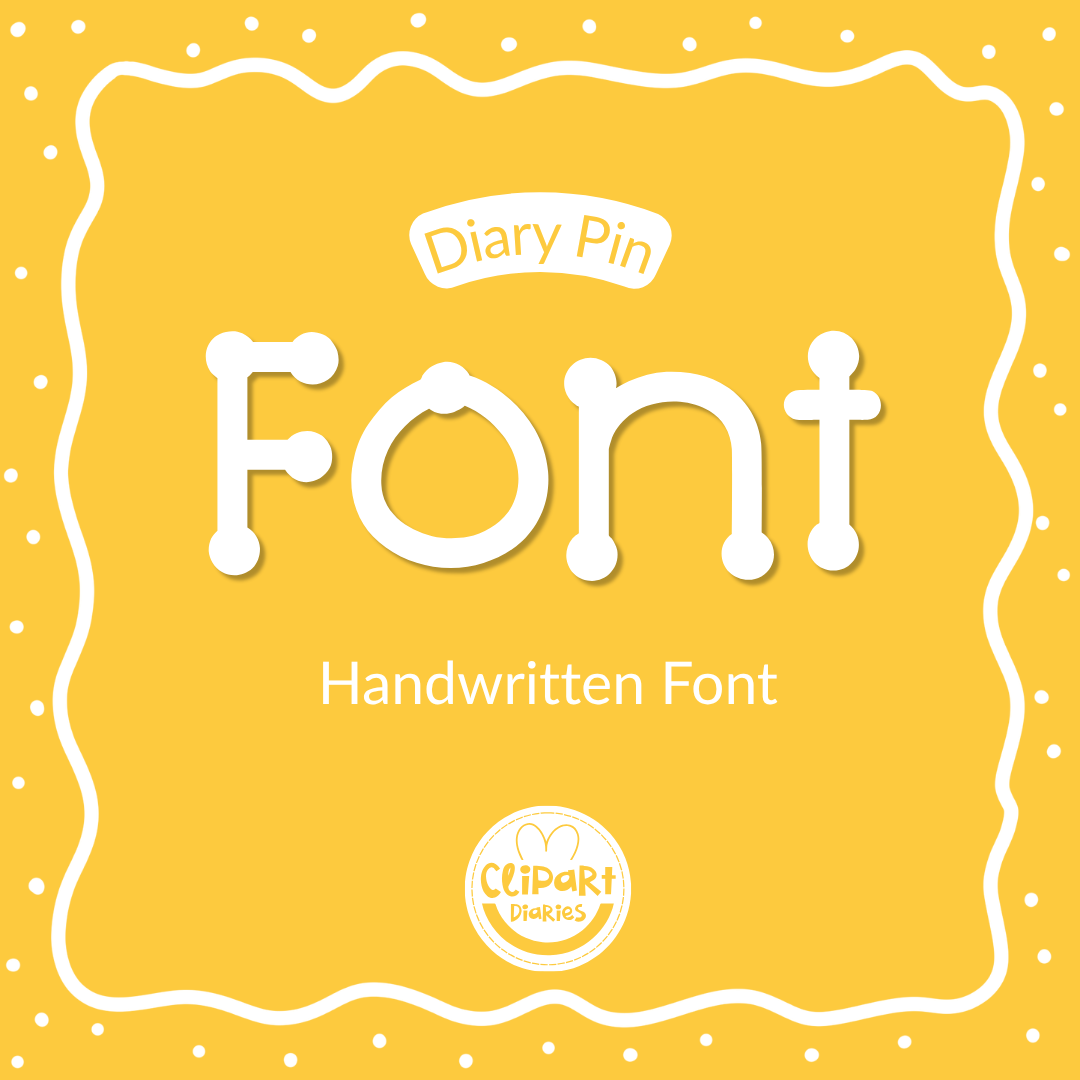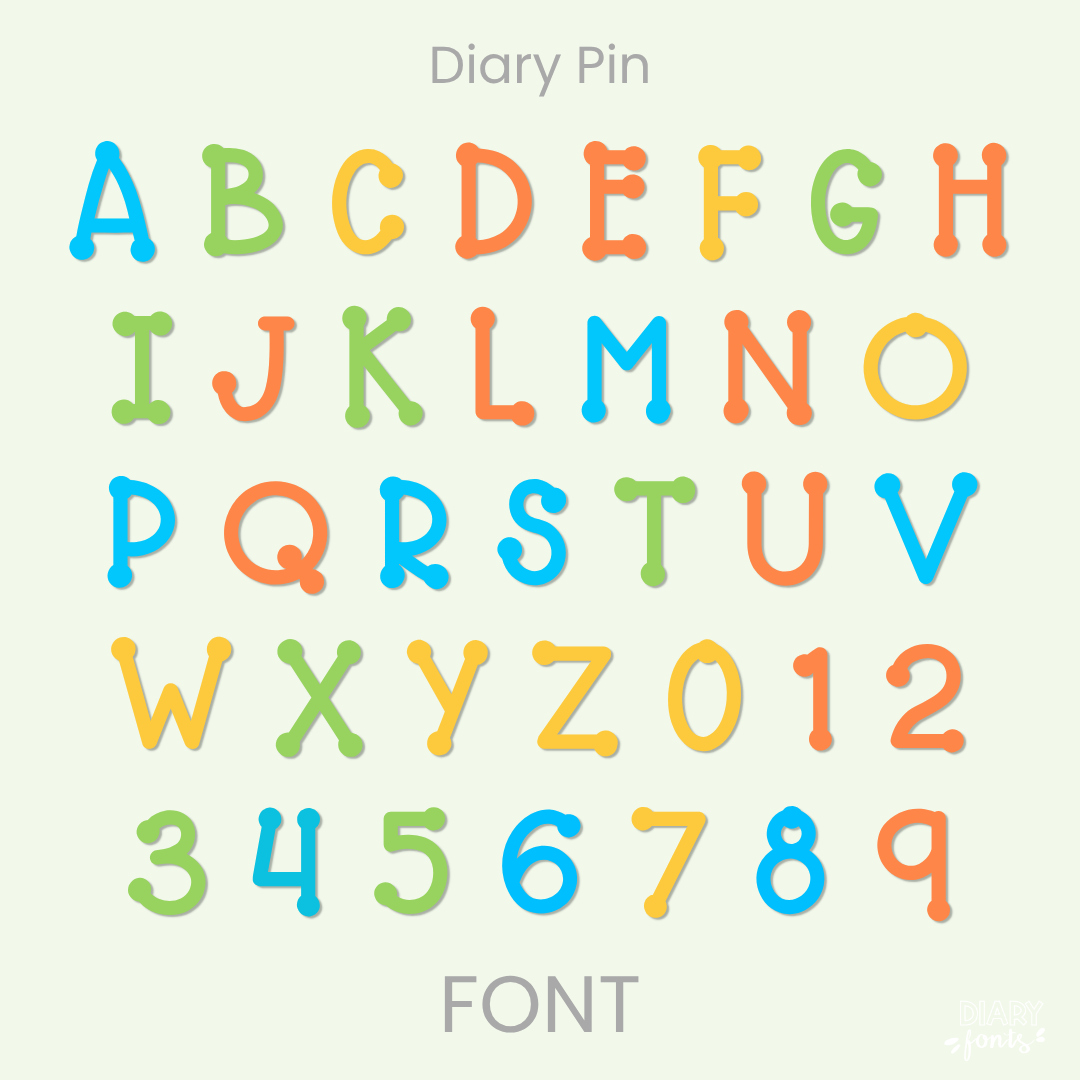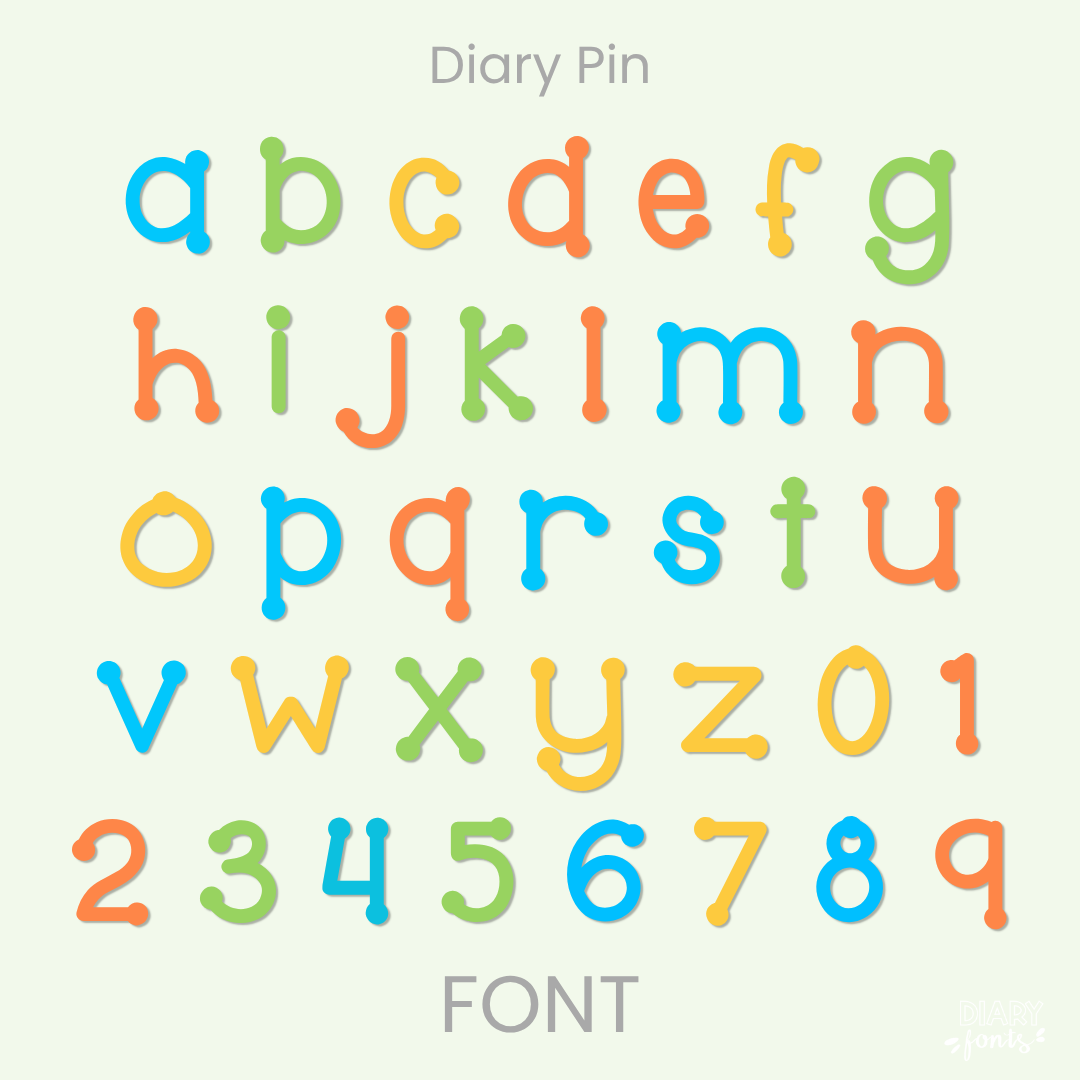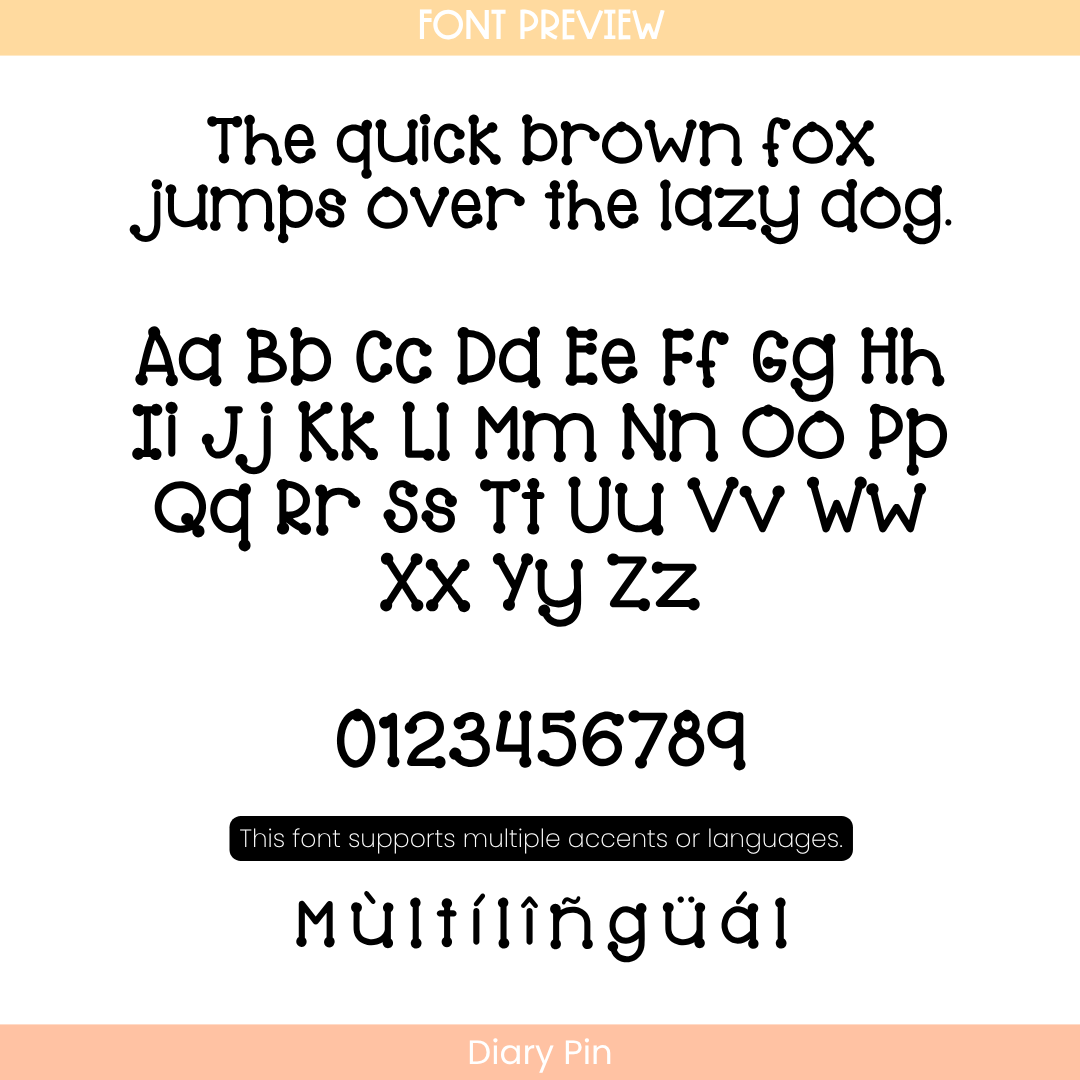
Diary Pin Font – Handwritten Font
The Diary Pin is a creative, decorative handwritten font featuring unique pin accents integrated into the structure of each letter, designed to bring a whimsical, eye-catching layout style to your digital resources and classroom materials.
If you want to give your projects a highly unique and playful look, Diary Pin is an excellent choice. Built on a neat, upright print structure, this typeface adds a charming twist with subtle pin-like loop and hinge details embedded right into the letterforms, giving a distinct hand-crafted architecture to your text. It maintains clear spacing and a balanced visual weight, ensuring your text remains exceptionally crisp and easy for students to read.
This font is a perfect fit for theme-themed classroom headers, creative worksheets, printable task cards, morning presentation slides, and daily bulletin boards where you want titles to stand out with a creative flair. The download includes a full set of uppercase and lowercase letters, numbers, and multiple accents to support different languages. It is ready for use in Canva, MS Office, and Adobe Apps, and it works smoothly on the iPad with GoodNotes and Procreate. Whether you are creating personal classroom decorations or commercial teacher resources, this typeface brings a warm, fun, and approachable aesthetic to your design toolkit.